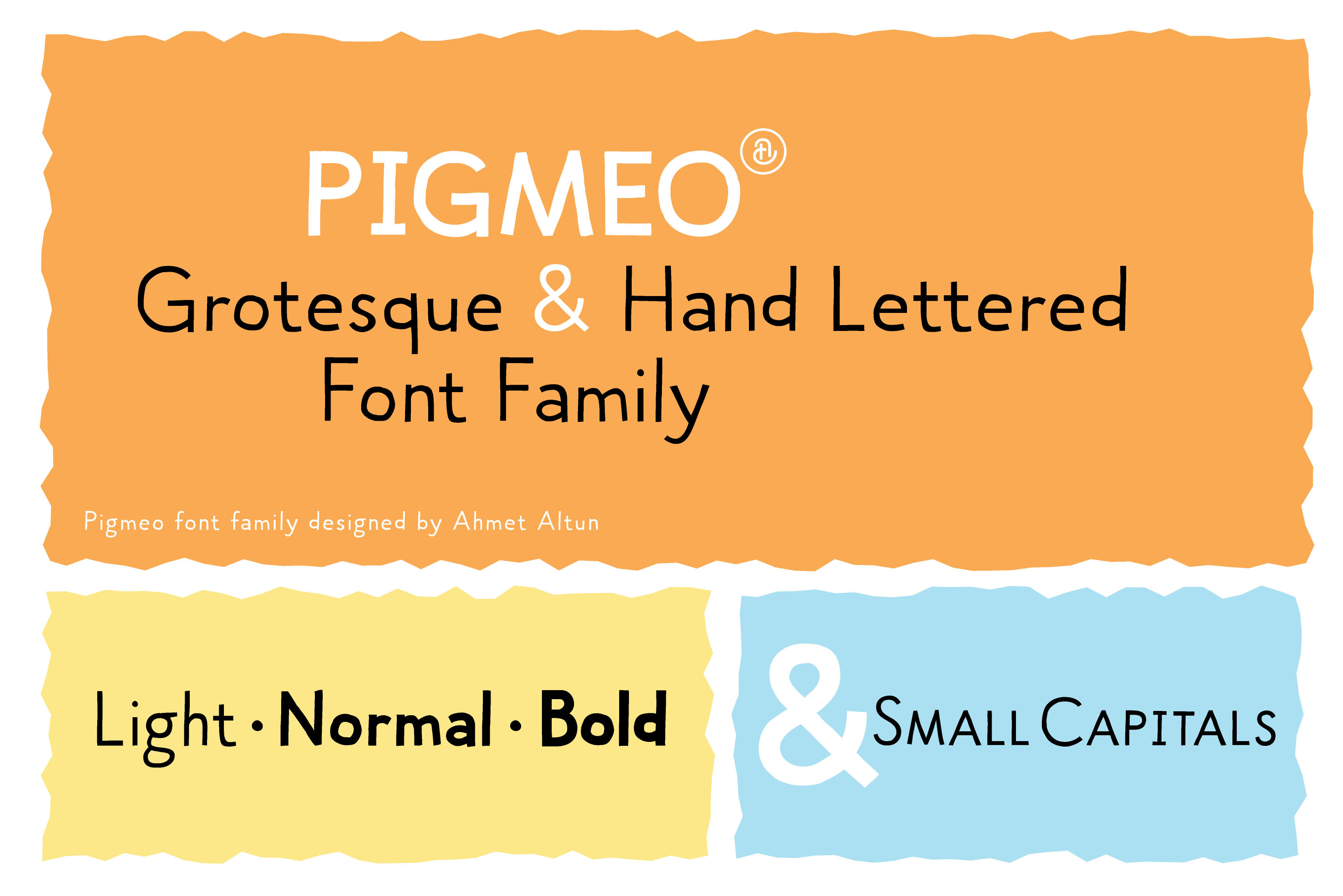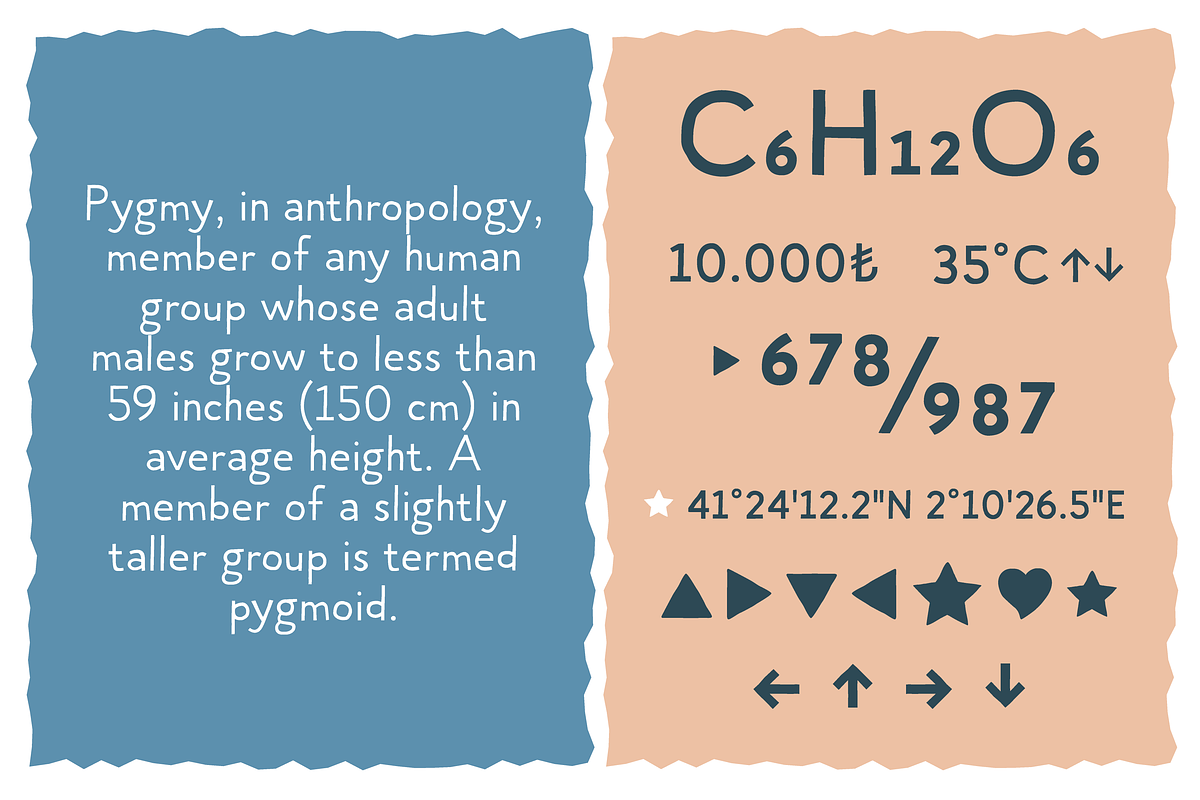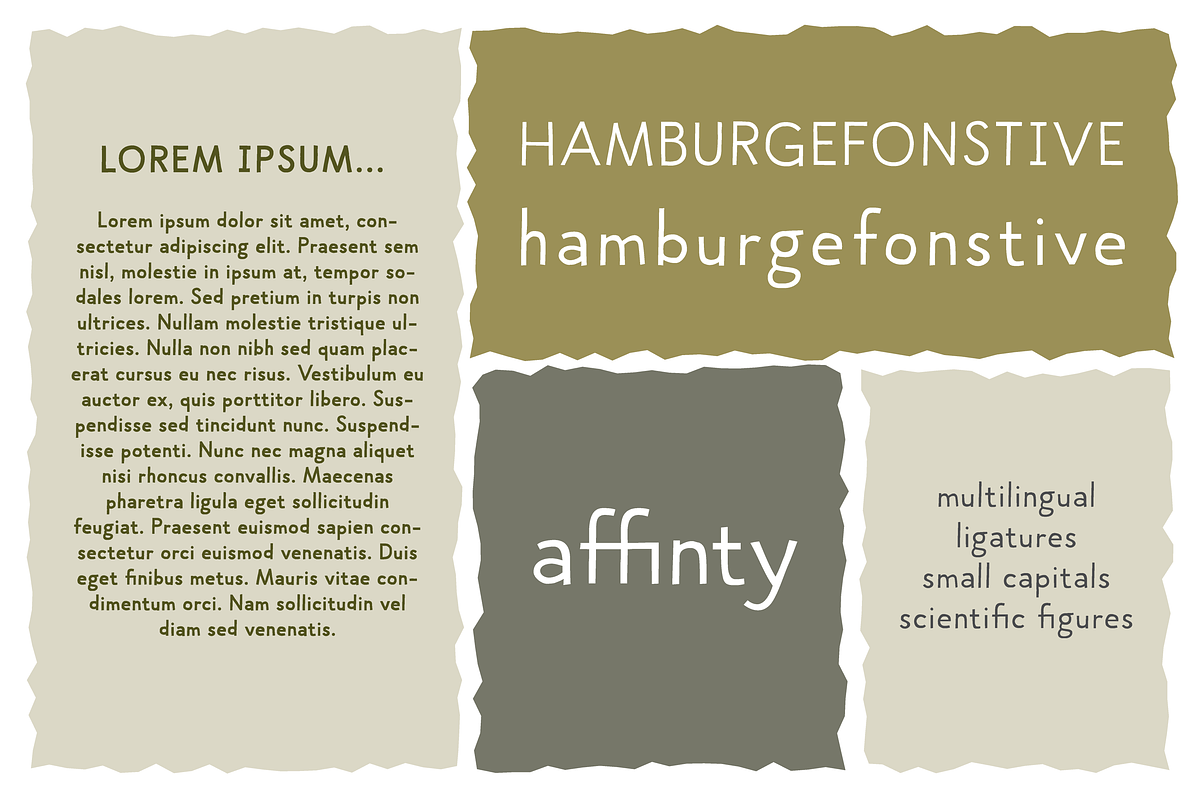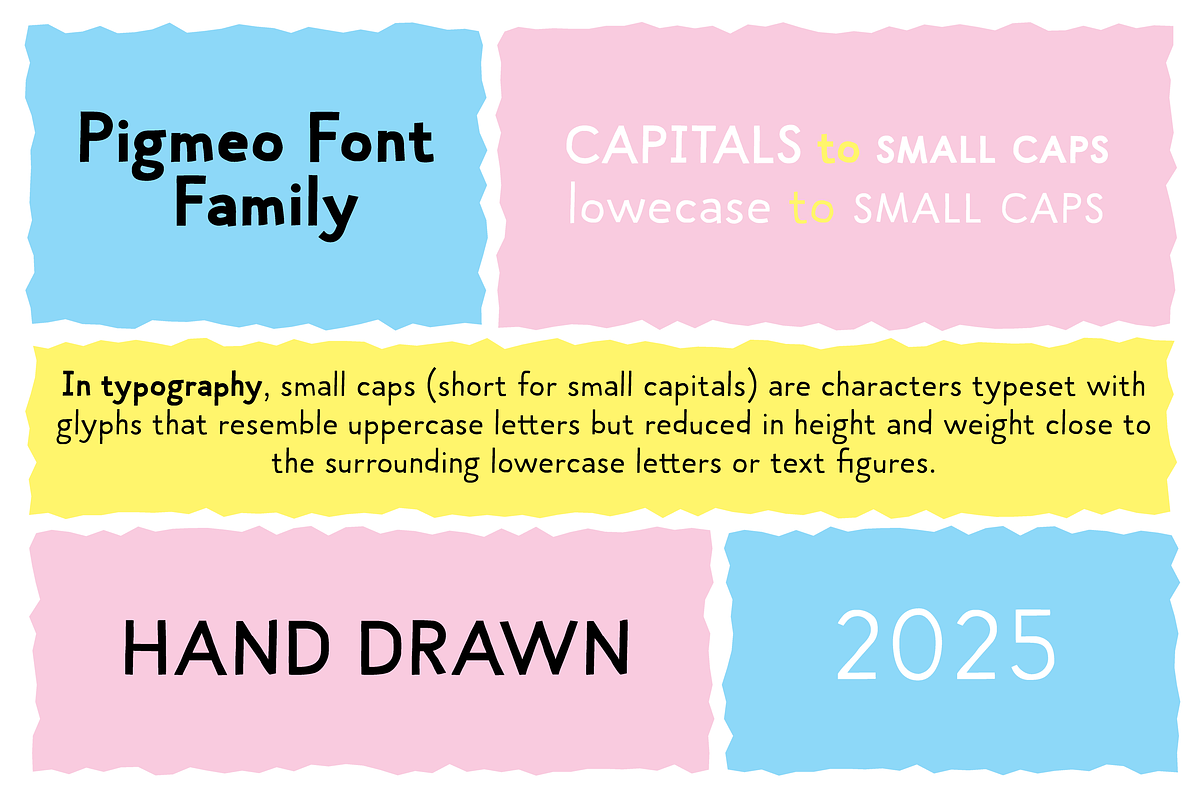
Pigmeo Font Family
Pigmeo is a hand-drawn font family consisting of 3 weights: light, normal and bold. The letter heights of uppercase and lowercase letters are shorter than standard font heights. Small Capitals, figures are available to create scientific formulae. With its cute and hand-drawn natural structure, it can be an excellent font choice for business cards, posters, packaging, product promotions and all kinds of graphic design works.